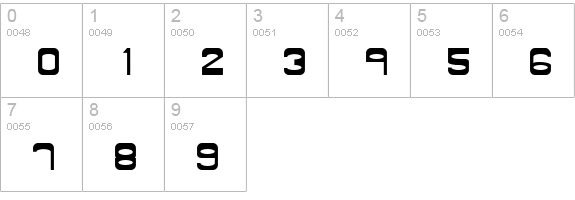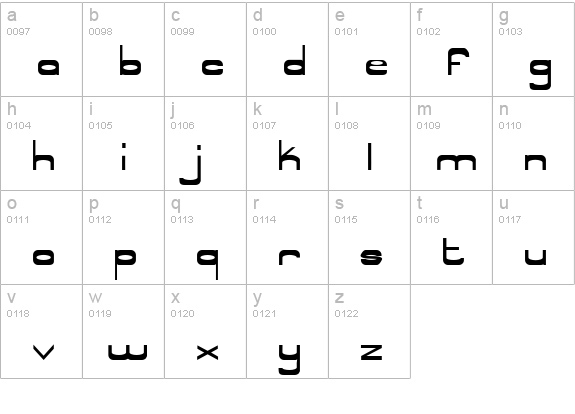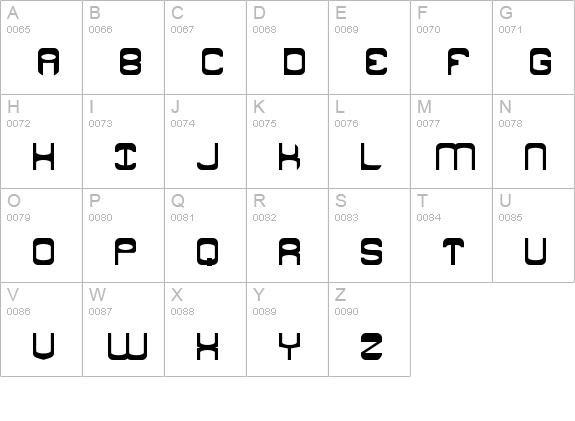
Nyak Squared 1 Font Details
Nyak Squared 1 font is a modern and stylish typeface that is perfect for adding a touch of sophistication to your design projects. With its clean lines and geometric shapes, this font exudes a sense of elegance and professionalism. Whether you are creating a logo, designing a website, or working on a print project, Nyak Squared 1 font will elevate your work to the next level. What makes Nyak Squared 1 font even more appealing is that it is available for free download at FontsMarket.com. This means you can start using this beautiful font in your projects without any cost. Don't miss out on the opportunity to enhance your designs with Nyak Squared 1 font's unique style and versatility. Download it today and see the difference it can make in your creative work.